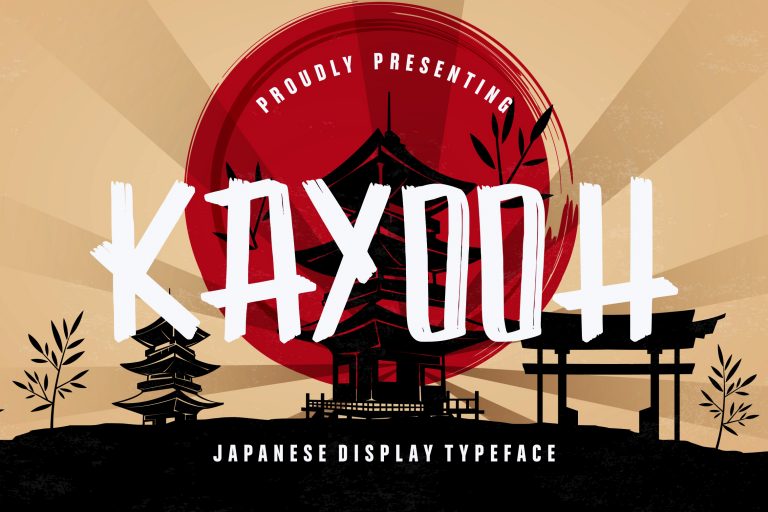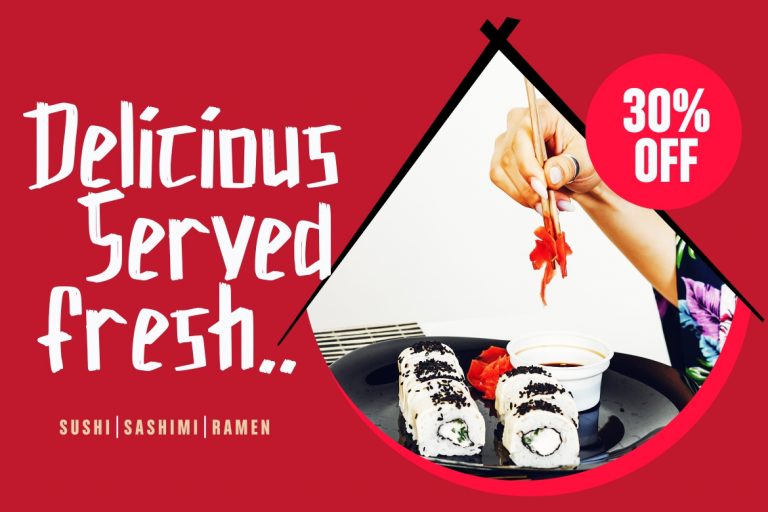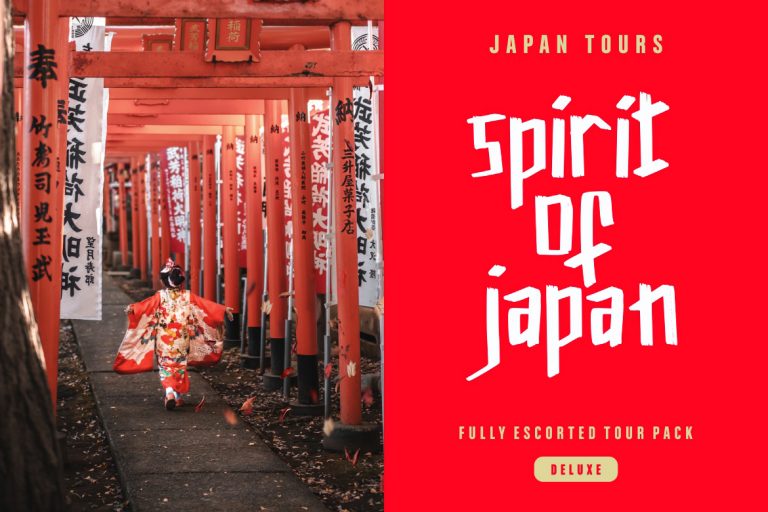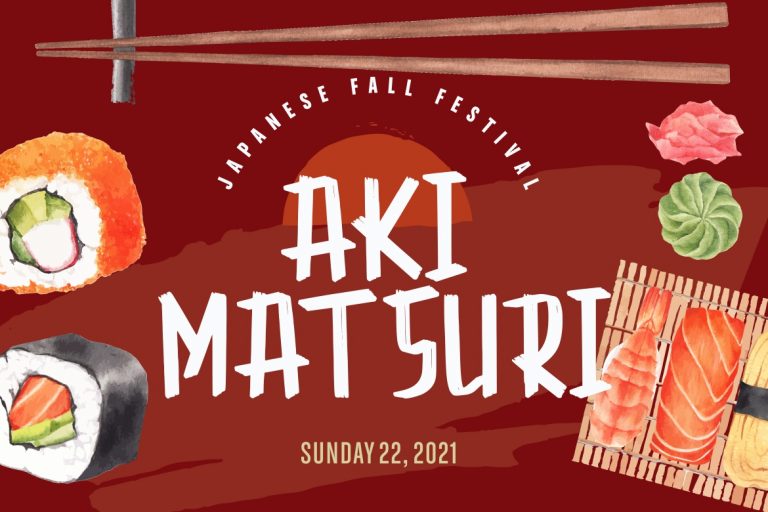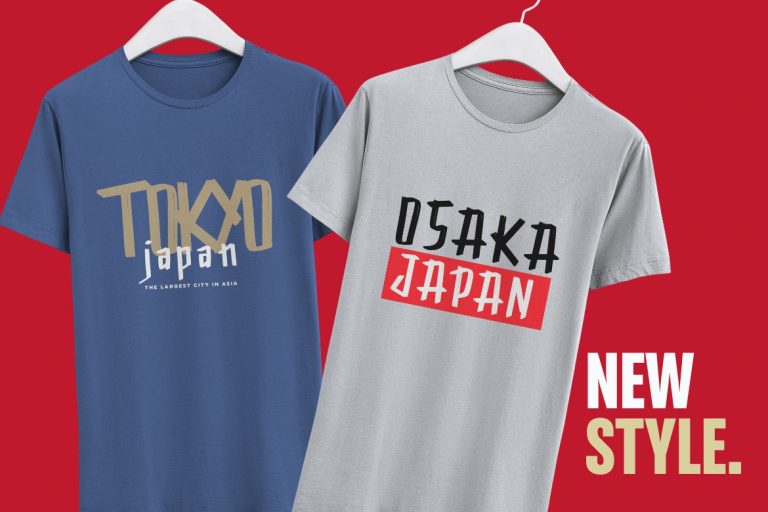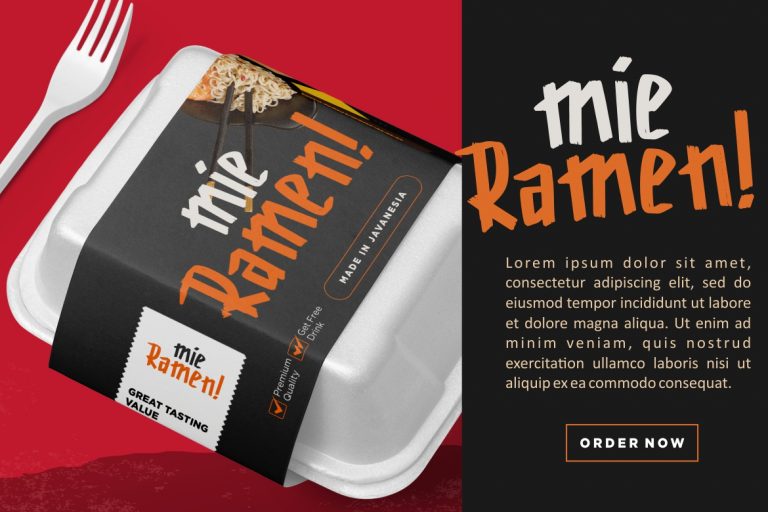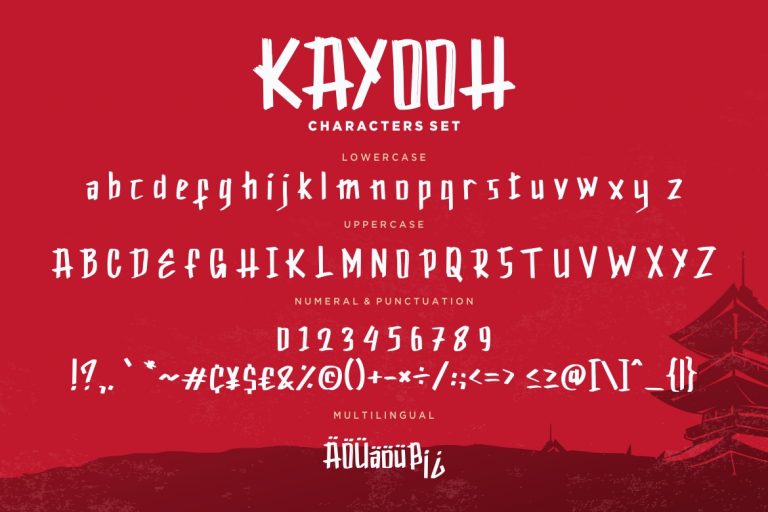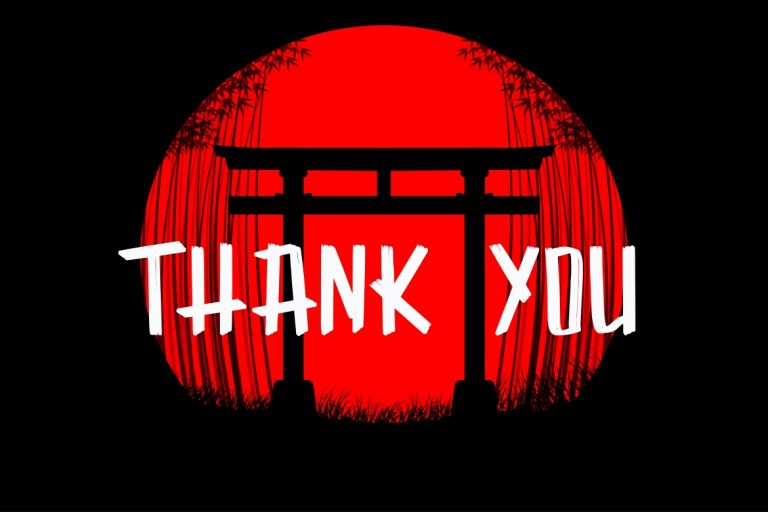
Kayooh is a bold and solid display font that has japanese traditional feeling and suit for any japanese events.
Kayooh is perfect for branding projects, logo, wedding designs, social media posts, advertisements, product packaging, product designs, label, photography, watermark, invitation, stationery and any projects that need handwriting taste.
• Fonts include multilingual support for; ä ö ü Ä Ö Ü ß ¿ ¡
Kayooh Japanese Display Typeface